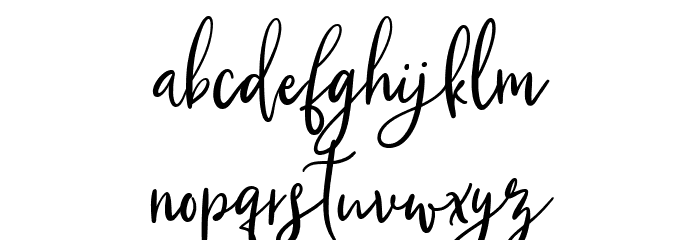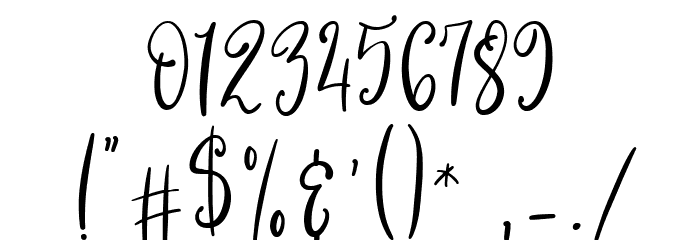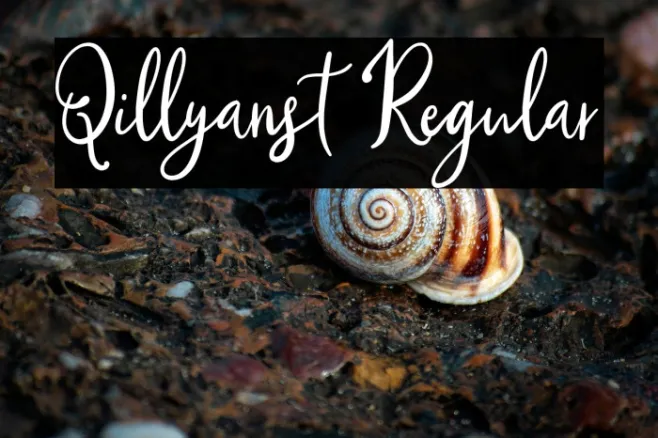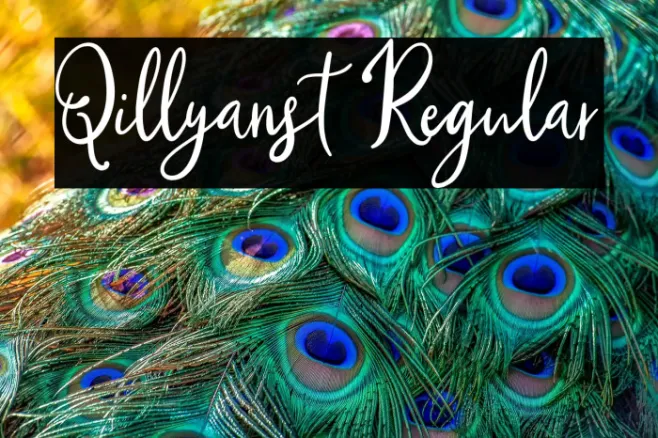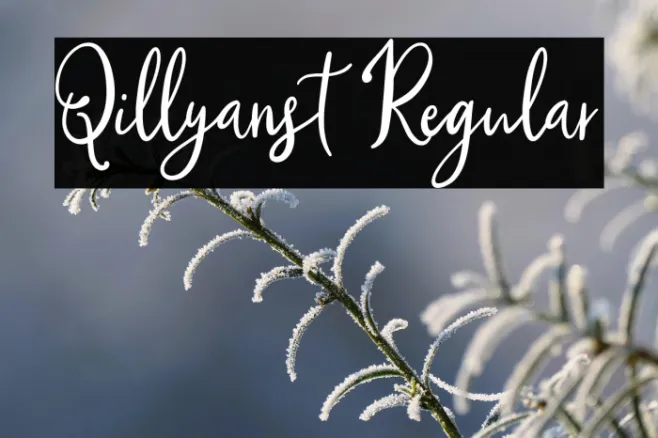
Qillyanst Regular Font
This font features an elegant and flowing script style, characterized by its smooth, cursive strokes that mimic the fluidity of handwriting. The uppercase letters are tall and graceful, with sweeping curves and loops that add a touch of sophistication. The lowercase letters maintain a consistent flow, with some letters connecting seamlessly to the next, enhancing the handwritten feel. Numbers and special characters are crafted with the same attention to detail, ensuring a cohesive look across all elements. The overall appearance is both stylish and legible, making it suitable for a variety of creative applications.
An elegant, flowing script font with a handwritten style.
- Proposed Projects: Ideal for wedding invitations, greeting cards, branding projects, and elegant logos.
- Overall Style: Elegant, Handwritten
- Use Case: Logos, Invitations, Greeting Cards